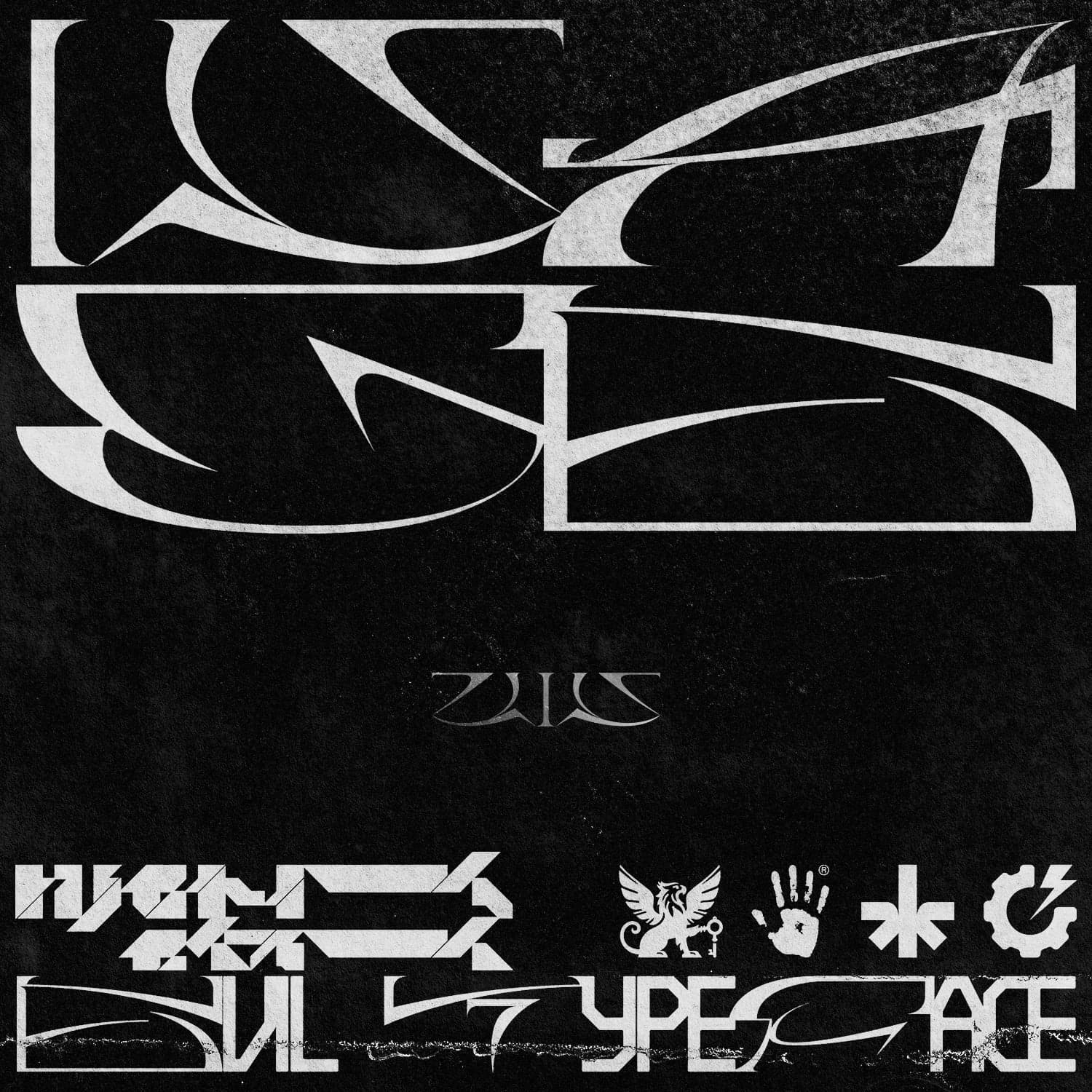
<p>Introducing Wage Underground Font, a unique fusion of ultra-wide, razor-sharp characters with bold, robotic elements. Ideal for grunge, techno, and modern designs, it’s perfect for t-shirts, sweatshirts, posters, albums, and more, allowing you to make a bold statement with ease.</p>